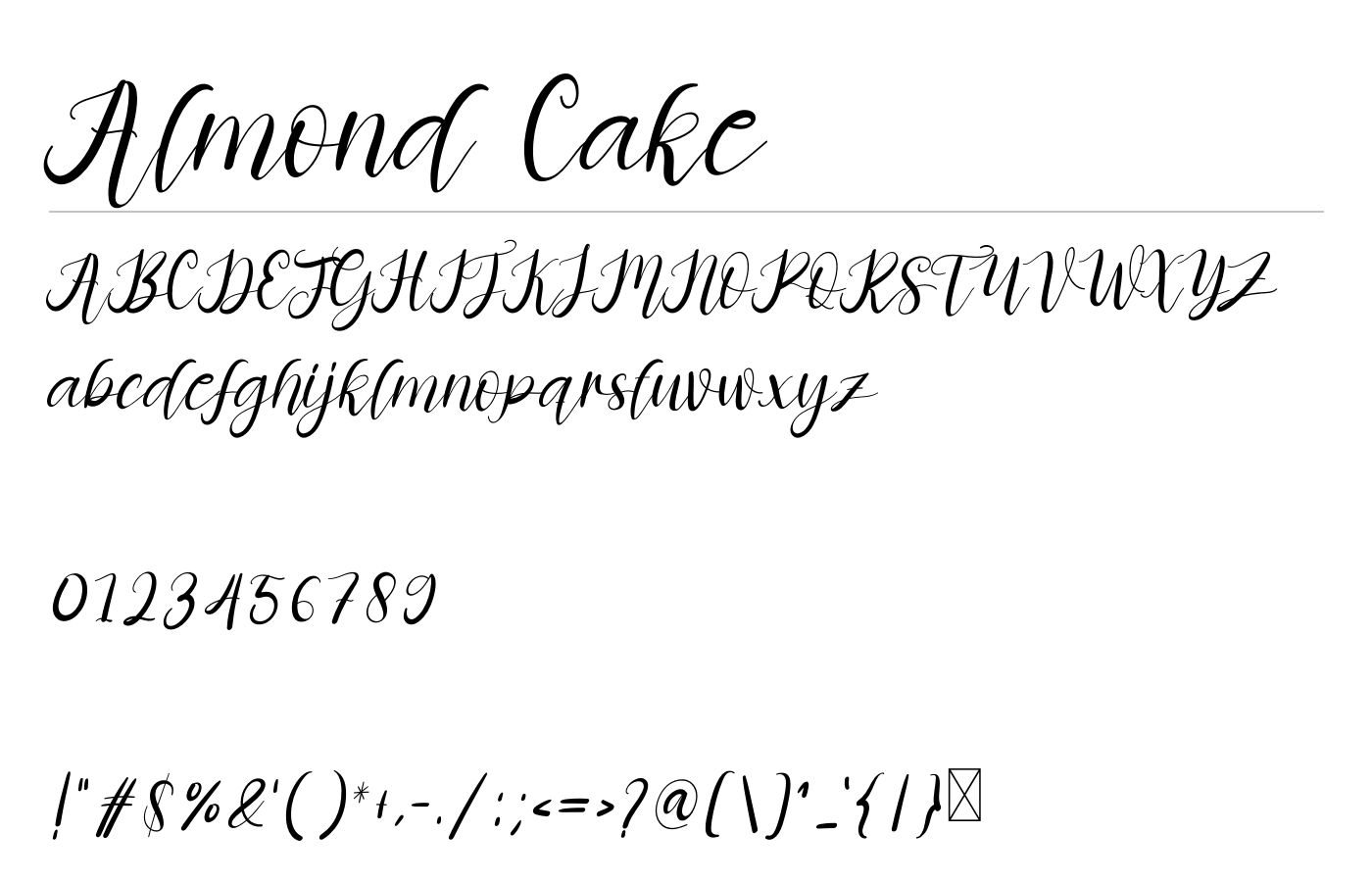
Almond Cake is an elegant, flowing script font with a graceful and slightly whimsical character. Its smooth, medium-contrast strokes and delicate swashes lend a charming, handcrafted feel that’s perfect for feminine branding, invitations, and stylish logos. This font shines in designs that seek a touch of sophistication with a warm, personal touch.
Almond Cake Font
About Almond Cake Font